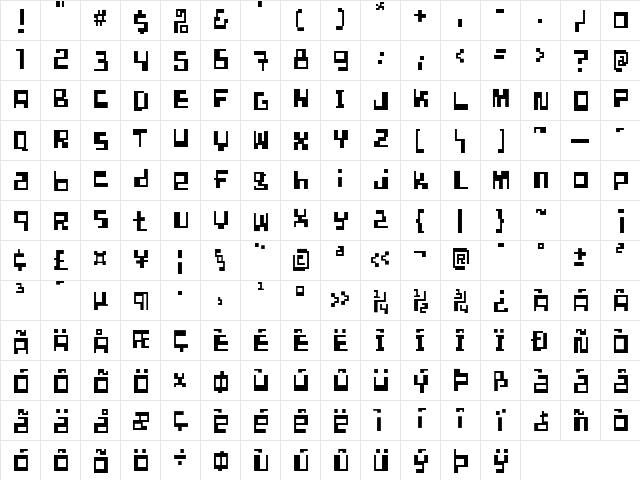
Quadrada Medium Free Font
Quadrada Medium
Design Context for Quadrada
Quadrada is a composed and adaptable typeface that performs quietly and consistently across a wide range of design contexts.